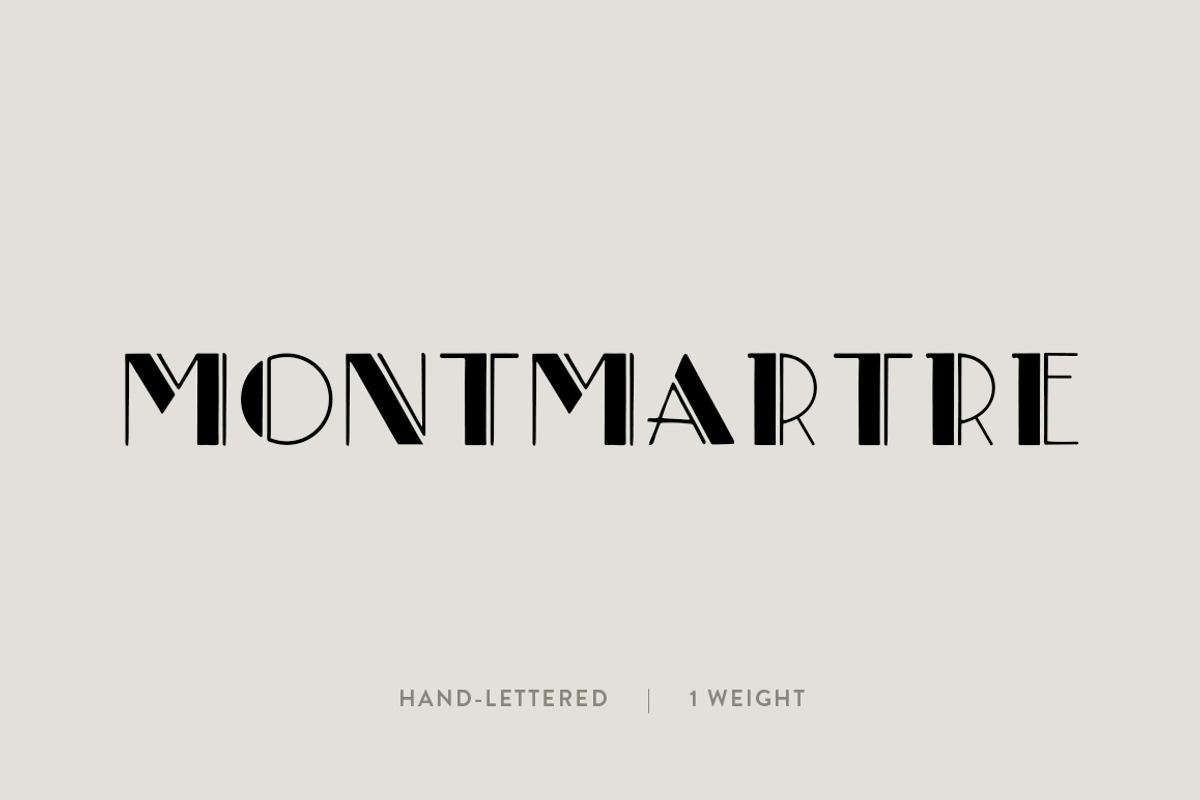
The Montmartre: A Paris-Inspired Font Free Download is a stylish and elegant typeface that captures the essence of Parisian charm. With its sophisticated letterforms and timeless appeal, this font is perfect for projects that require a touch of classic French beauty. Whether you’re designing a logo, invitation, or fashion magazine, Montmartre adds a refined, Parisian flair to any creative endeavor.
Montmartre: A Paris-Inspired Font Free Download is ideal for designers seeking a chic and elegant typeface for high-end branding, luxury products, or romantic event designs. Download this beautiful font today and bring the spirit of Paris into your work with its sophisticated and timeless style!